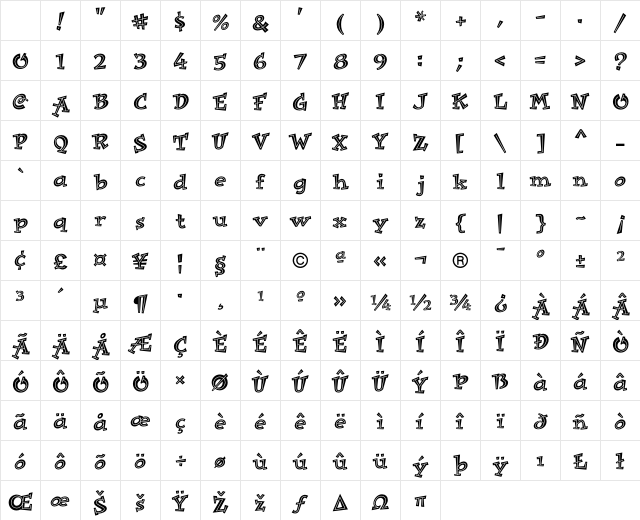
Complete ImprovICG Inline glyph index. Displaying only characters natively supported by ImprovICG Inline font.
ImprovICG is built around its visual character rather than neutral utility - its distinctive forms are designed to make an impression at display sizes.
Font Pairing: Pair with a clean neutral sans-serif for body copy to let ImprovICG's character lead without overwhelming the composition.
Pro Tip: Use ImprovICG exclusively at display sizes - it was designed to be seen, not read at length. Let a neutral companion handle body copy.